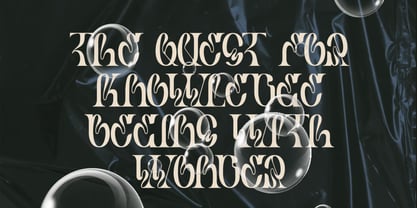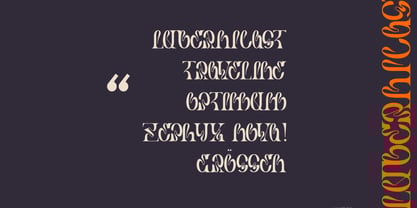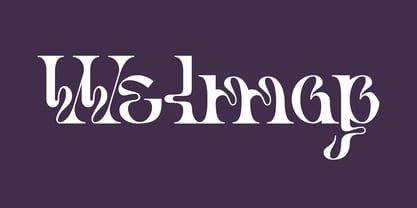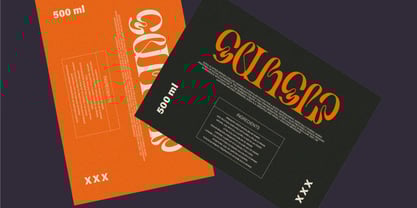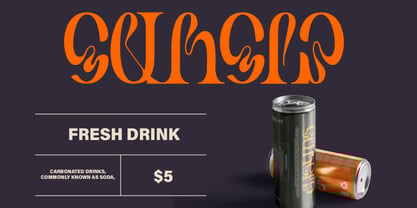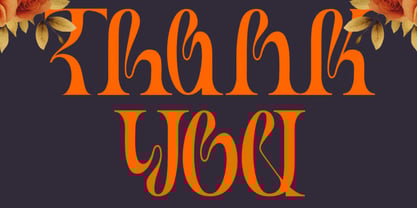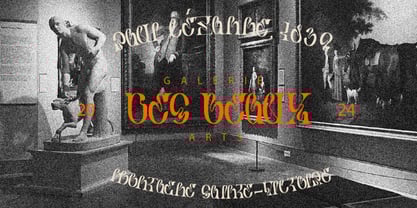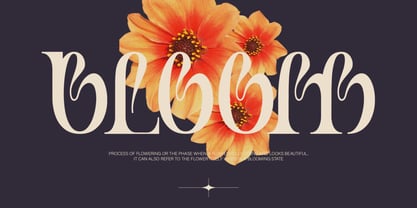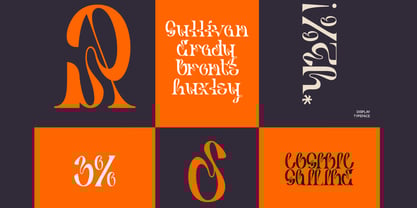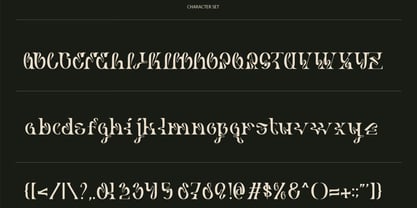
Welmap
by Hasnat Studio
The Welmap Font Family was designed by Hasnat Khan and published by Hasnat Studio. Welmap contains 1 styles.
Welmap is a stylish, modern serif font crafted with a unique melted concept that seamlessly blends classic elegance with expressive, fluid artistry. Its smooth, dripping letterforms create a sense of movement and creativity, making it a standout choice for designers looking to infuse their work with personality, originality, and bold visual impact. This typeface merges traditional serif structure with a contemporary, experimental twist—ideal for projects that demand both sophistication and striking character. Whether you're designing logos, branding materials, posters, album covers, fashion layouts, magazine titles, social media graphics, or creative editorial work, Welmap elevates your design with its eye-catching style. ✿ Key Features: Unique Melted Serif Style: Classic serif shapes reimagined with a modern, dripping aesthetic. Elegant & Artistic Letterforms: Smooth, flowing designs that add depth and motion. Uppercase & Lowercase: Complete letter sets for versatile typography. Numbers & Punctuation: Fully equipped for professional design usage. Multilingual Support: Includes accented characters for global projects. High-Quality Craftsmanship: Clean outlines and balanced proportions for polished results. ✿ Perfect For: Branding & Logo Design: Create unforgettable, artistic brand identities. Posters & Album Covers: Achieve bold, modern, expressive visual styles. Fashion & Editorial Design: Elevate magazine headlines and luxury layouts. Social Media & Advertising: Add intrigue and creativity to digital campaigns. Creative Projects: Ideal for quotes, product packaging, invitations, and experimental designs. Enjoy Welmap with confidence—free future updates are included to ensure compatibility and ongoing improvements. Bring your creative ideas to life with Welmap, the melted serif font that adds uniqueness, elegance, and artistic flair to every project.